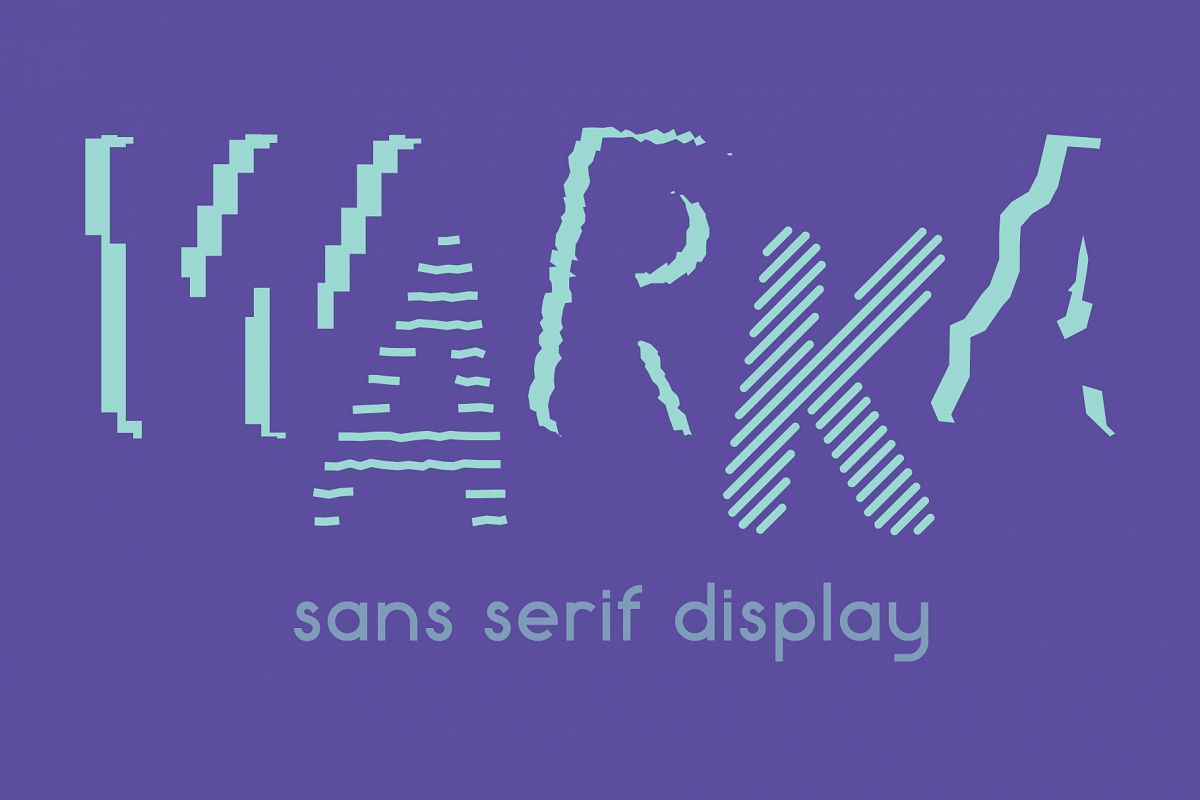
Warka
Warka-Stoned
Warka-Lines
Warka-Rough
Warka-blocks
Warka-Stripes
Warka typeface is based on sans serif. This display family includes 5 font styles. Combinations may give you impressive effects.